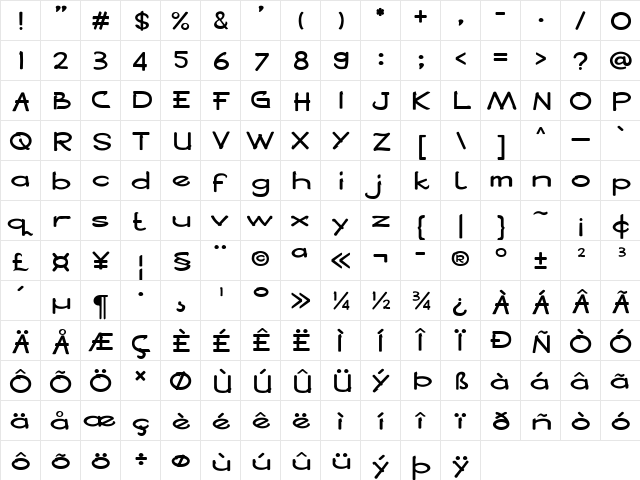
Jsd Streampoint Expanded Regular
| Foundry | Midvel |
| Designer | Midvel |
Design Context for Jsd Streampoint Typeface
Jsd Streampoint offers clean, dependable letterforms without strong stylistic allegiance, making it a practical choice for designers who need flexibility.